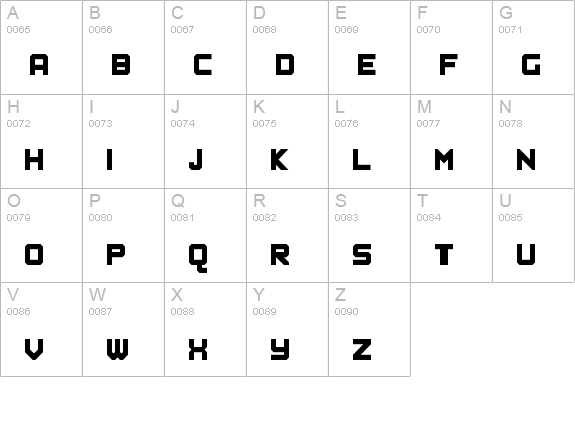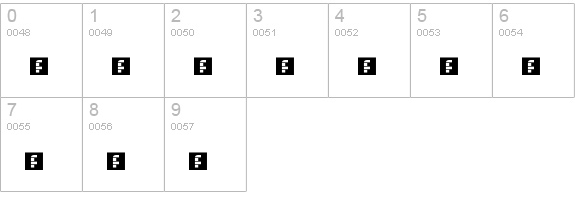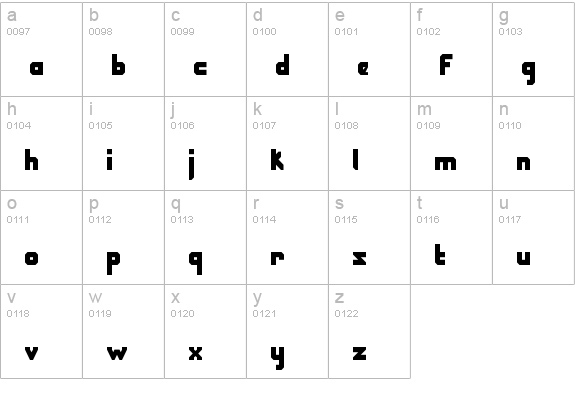
Hyperdigital is a cutting-edge font that effortlessly blends modern aesthetics with a digital twist. Designed for the tech-savvy and creatively inclined, this font brings a fresh and innovative touch to any project. With its sleek lines and geometric shapes, Hyperdigital captures the essence of the digital age, making it the perfect choice for websites, logos, posters, and more. This font boasts a wide range of characters, including uppercase letters, lowercase letters, numbers, and punctuation marks, ensuring versatility and compatibility across various design applications. Whether you're looking to create a sleek and futuristic look or add a touch of digital flair to your designs, Hyperdigital has you covered. One of the best things about Hyperdigital is that it is free! Yes, you read that right. This incredible font is freely available to download at FontsMarket.com. So, you can bring your creative vision to life without breaking the bank. Whether you're a professional designer or a hobbyist, this font allows you to explore your creativity without any limitations. So why wait? Embrace the digital revolution and elevate your designs with Hyperdigital. Download it now for free at FontsMarket.com and unlock a world of possibilities.